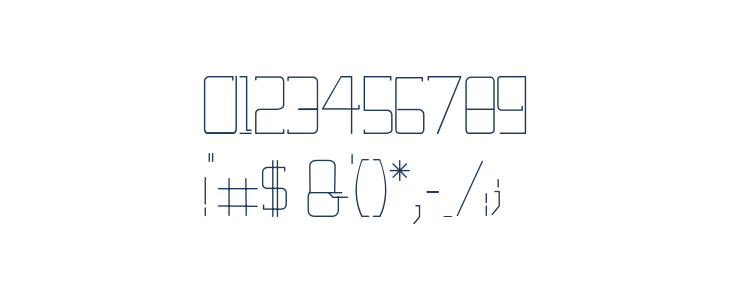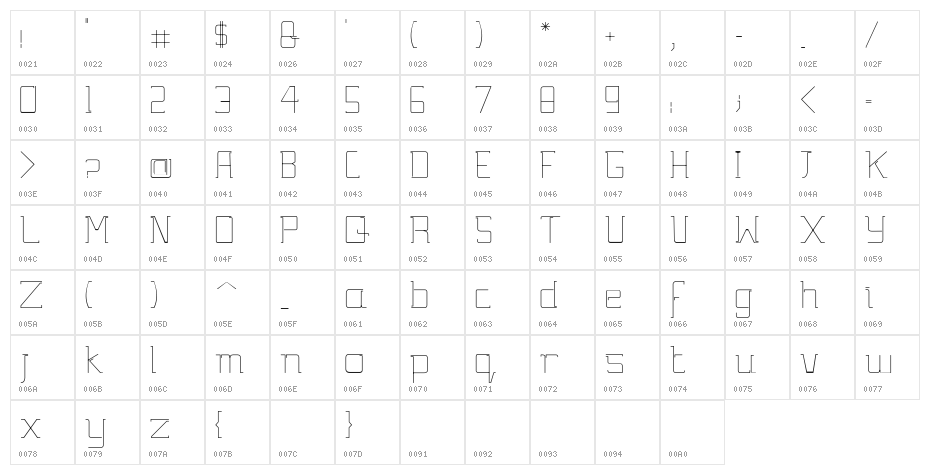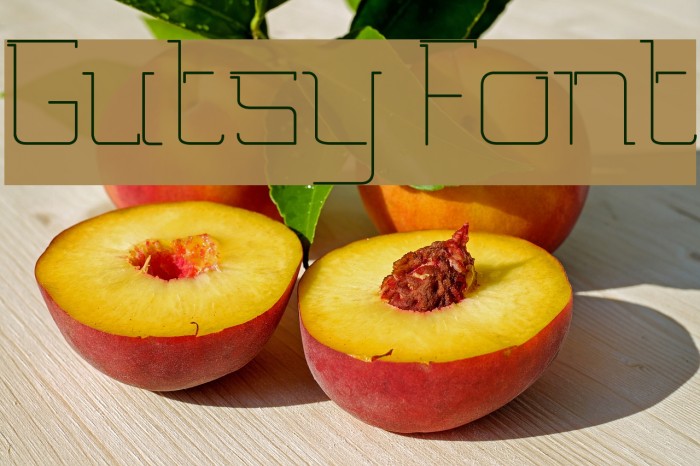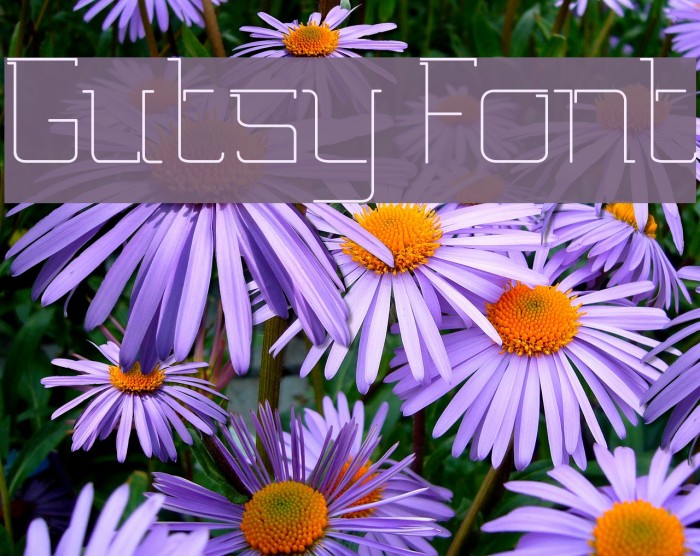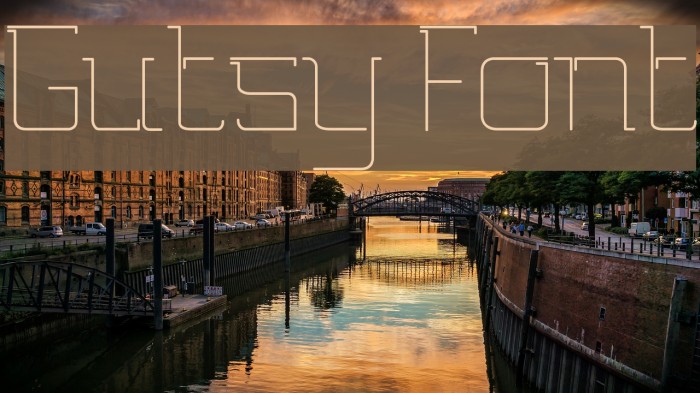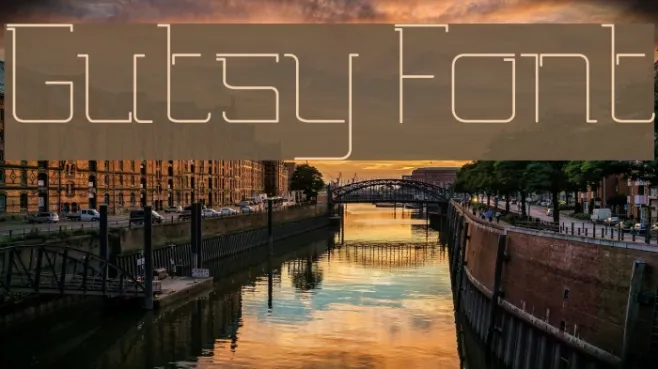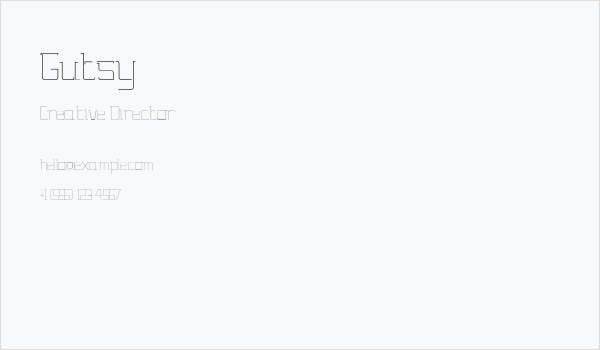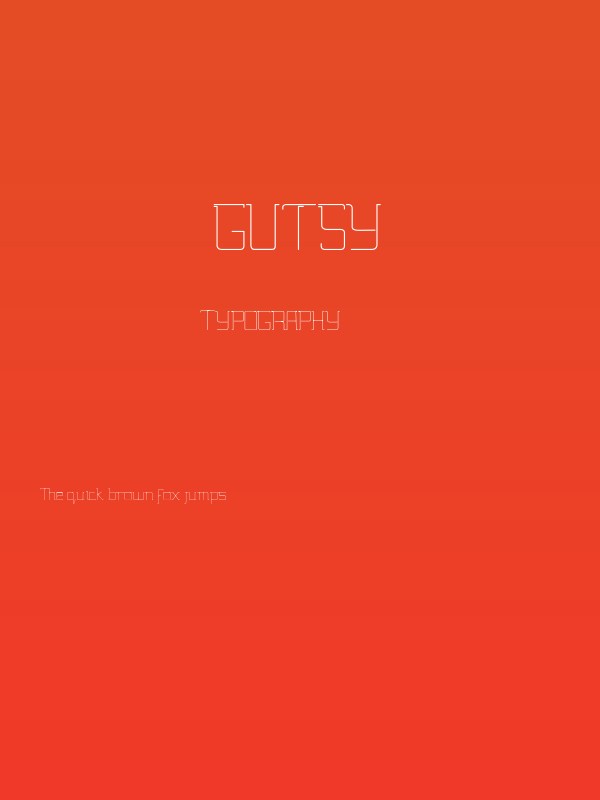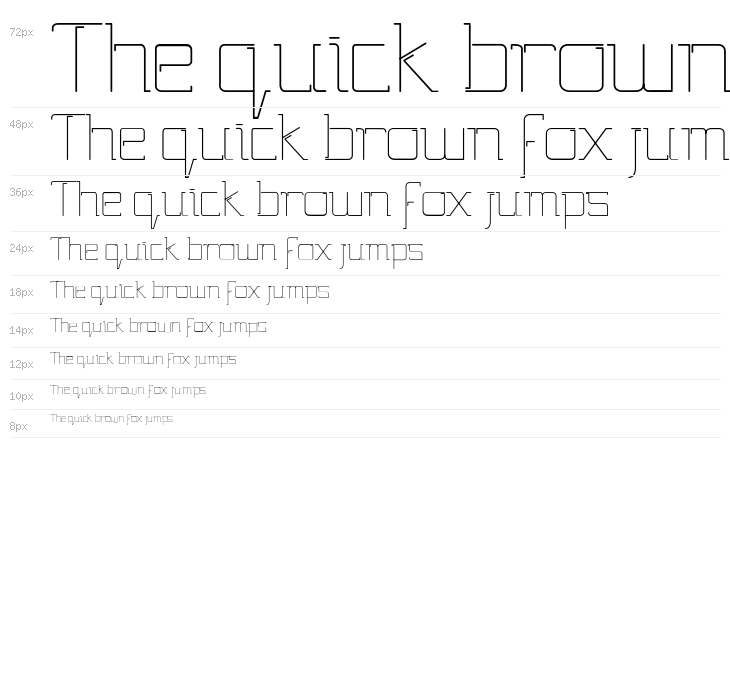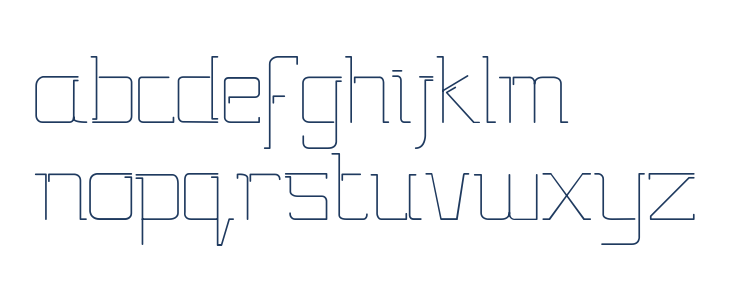
Gutsy Font
Gutsy Description
This font features a modern, geometric design with a distinct, linear structure. Each character is crafted with a single, continuous line that forms sharp angles and clean edges, giving it a technical and futuristic appearance. The uppercase and lowercase letters maintain a consistent height, while the numerals and special characters complement the overall aesthetic with their minimalist style. The font's unique construction makes it stand out, yet it remains highly legible, making it suitable for various design applications.
| Proposed Projects | Ideal for technology branding, futuristic posters, digital interfaces, and modern art projects. |